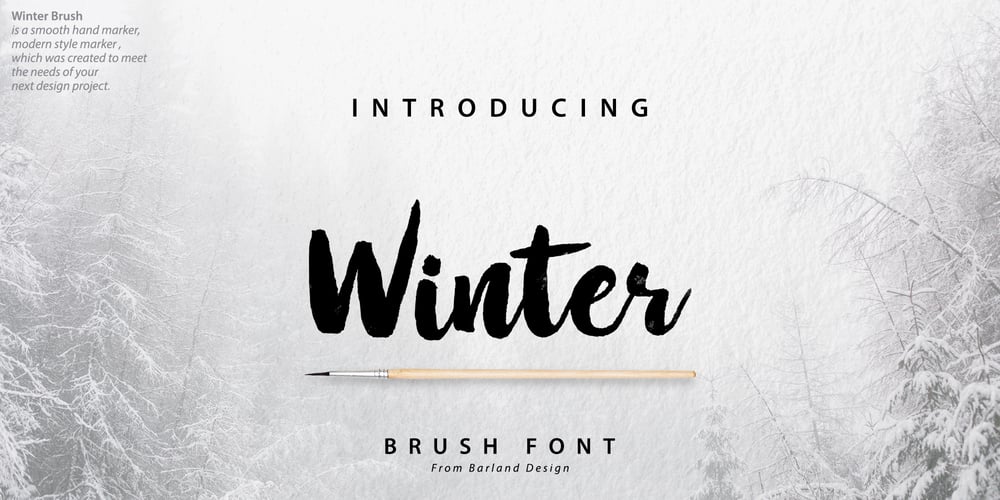
Winter Brush
Winter Brush font
Winter Brush Font Family was designed by Barmawi and published by Barland Studio. Winter Brush contains 1 styles and family package options. Introducing Winter Brush is a new font with textured stroke detail, also provided some ligatures and swashes extra.Winter Brush can used for various purposes. such as the title, logo, correspondence, signage, labels, newsletters, badges, t-shirt, etc.Also supports in program, Adobe Illustrator, Adobe Photoshop, Adobe InDesign, Corel Draw X version, Microsoft Word, etcWhat included:Comes with Uppercase and lowercase characters, large set of punctuation glyphs, numerals, supports international languages, stylistic alternates for several key lower case characters And this Font has given PUA unicode (specially coded fonts).Features:- Winter BrushTo enable the OpenType Stylistic alternates, you need a program that supports OpenType features such as Adobe Illustrator CS, Adobe Indesign & CorelDraw X6-X7.I hope you all enjoy with this stuff.If you have any question, please contact me Via e-mail : barmawymuchtar@gmail.com I’ll try to respond as quickly as possible.Thank you for purchase!